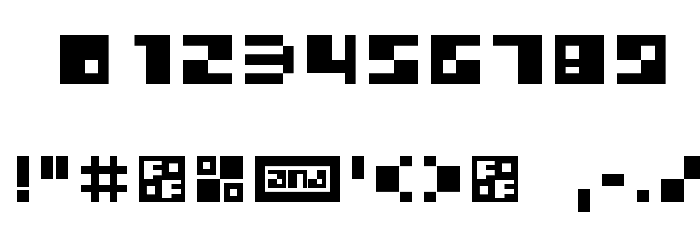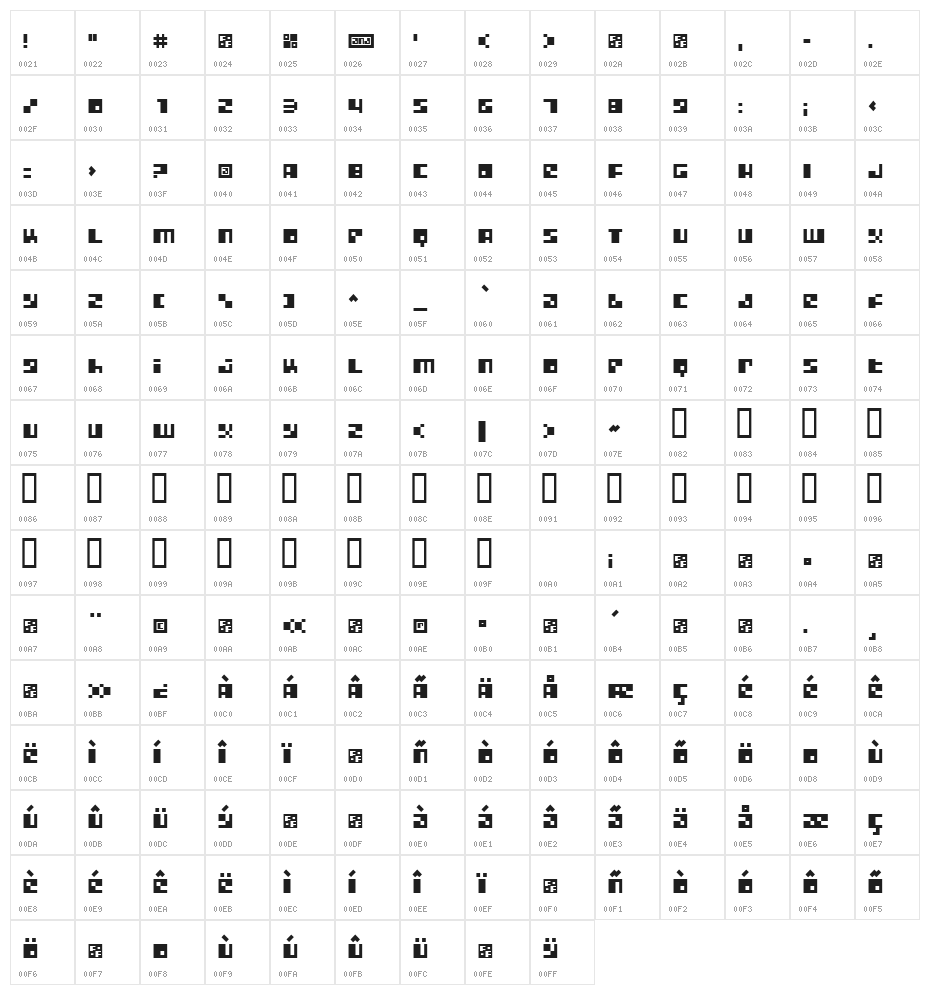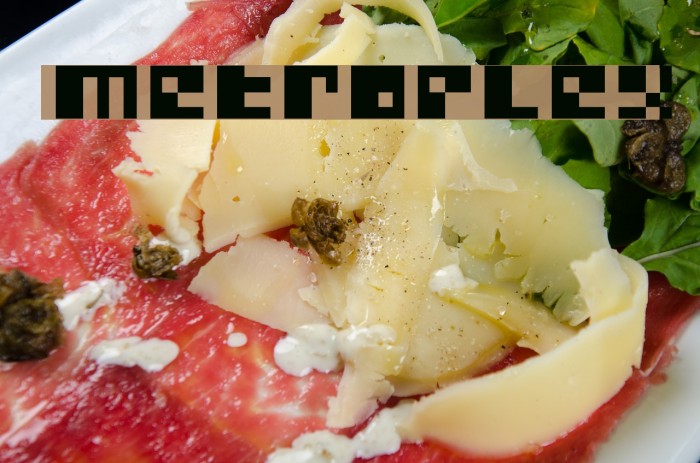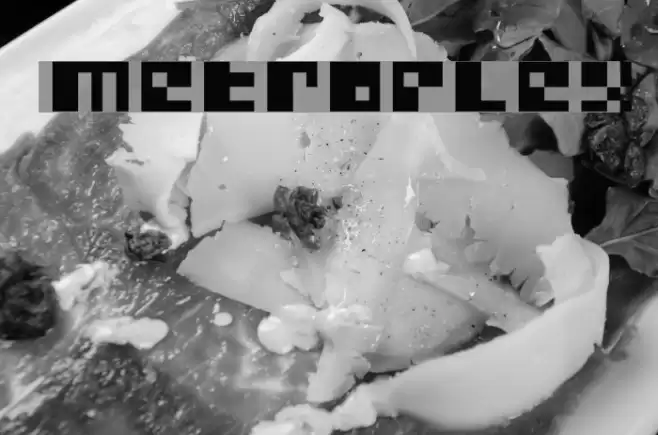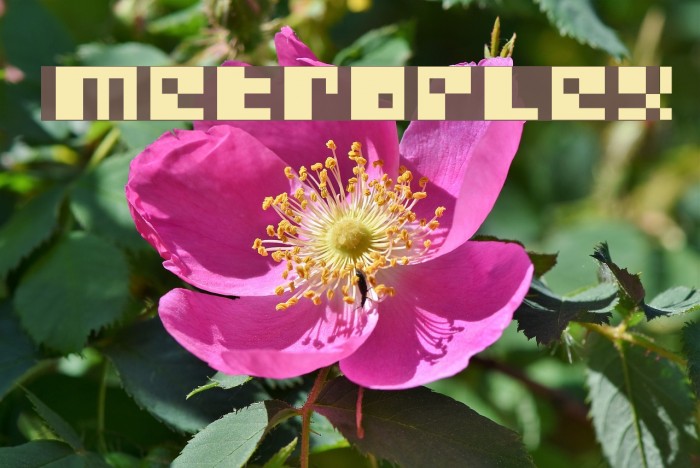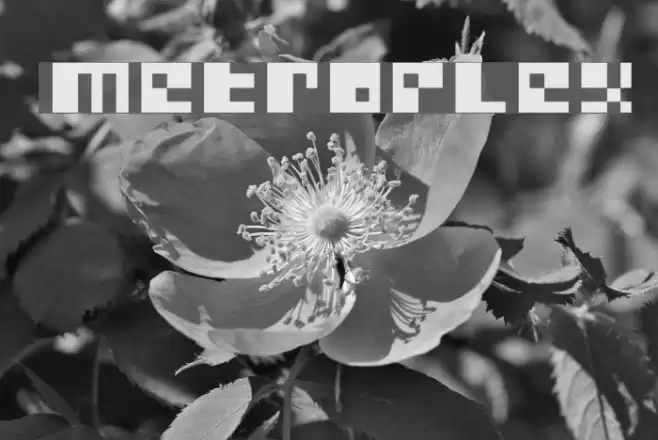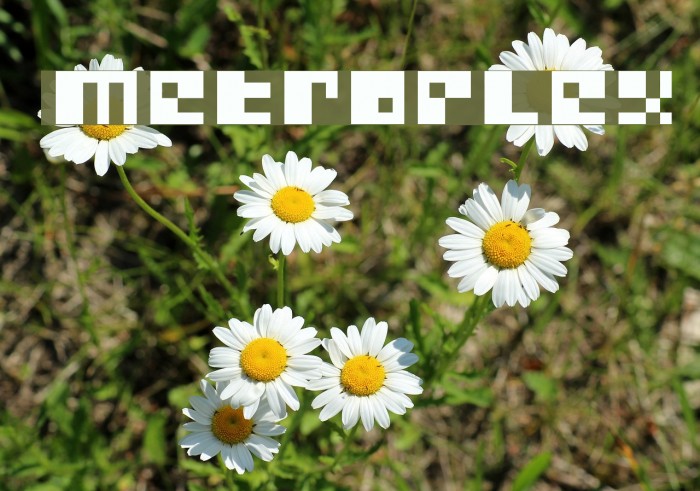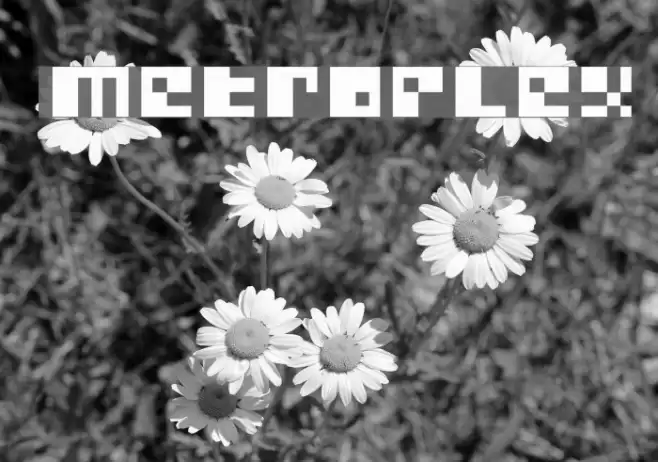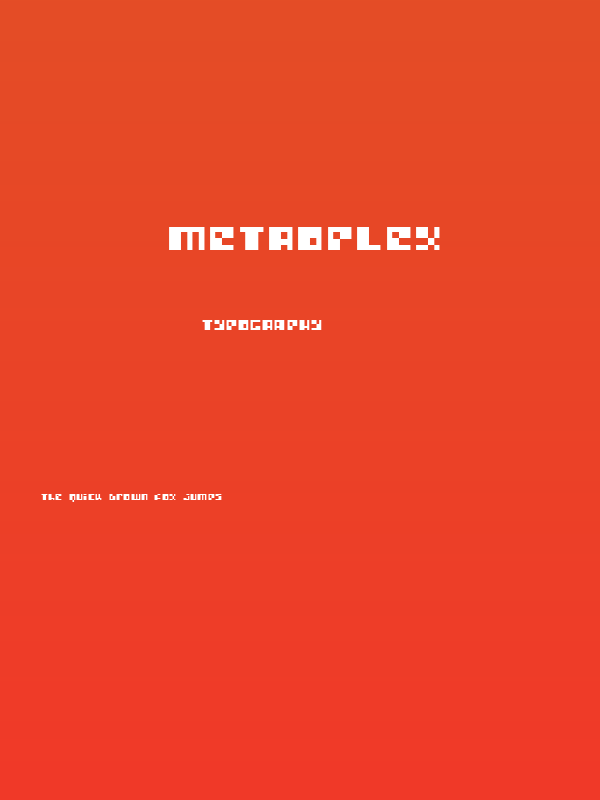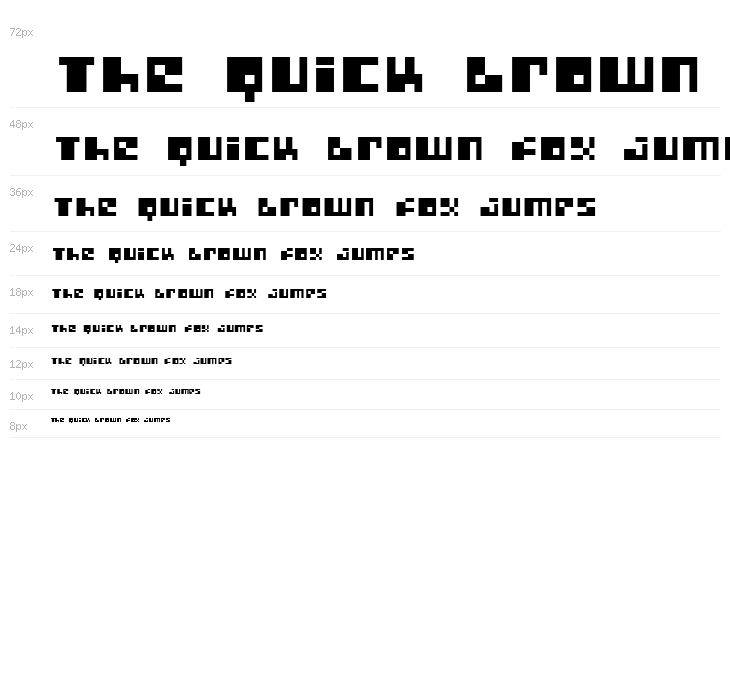
Metroplex Font
Metroplex Description
This font features a bold, geometric design with a distinctly futuristic and digital aesthetic. Each character is constructed with sharp, angular lines and blocky shapes, creating a sense of strength and modernity. The uppercase and lowercase letters maintain a consistent style, with minimal variation in stroke width, emphasizing a uniform and cohesive appearance. The numerals and special characters are designed to match the overall theme, making them suitable for digital displays or tech-related projects. The font's unique style makes it stand out, ideal for capturing attention in headlines or logos.
| Proposed Projects | Ideal for tech-related branding, digital displays, video game interfaces, and modern advertising. |